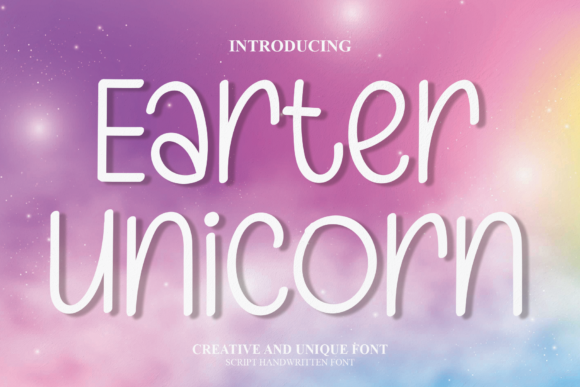
About Earter Unicorn Font
Earter Unicorn is a whimsical and charming handwritten font that radiates a sense of playfulness and friendliness. Its unique and endearing characters make it a perfect choice for a wide array of design applications, adding a touch of quirkiness and character to your creative projects.
When it comes to wall hangings, Earter Unicorn’s lighthearted and casual vibe can bring a sense of joy and positivity to any space. Its handwritten style lends itself beautifully to creating eye-catching and captivating wall art that brightens up any room.
For couples looking to add a touch of personality to their wedding invitations, Earter Unicorn offers a delightful option. Its friendly and approachable characters inject a sense of warmth into the design, making recipients feel welcomed and excited about the upcoming event.
The font’s playful nature also makes it an excellent choice for social media post logos and advertisements. Whether you’re promoting a product or sharing a message, Earter Unicorn’s cheerful typography can help create a strong visual identity that resonates with your audience.
Product packaging and designs can benefit from the font’s quirky charm as well. By incorporating Earter Unicorn into labels, product packaging, and designs, you can infuse your products with a sense of whimsy that stands out on the shelves and makes a memorable impression.
Photography watermarks take on a new level of creativity with Earter Unicorn. Its handwritten style adds a personal and artistic touch to your images, ensuring that your brand identity is well-represented in every photograph.
Invitations and stationery also get a boost of character with Earter Unicorn. Whether it’s a birthday party invitation or personalized stationery, the font’s friendly appearance adds a touch of fun and individuality to your designs.
In summary, Earter Unicorn is a quirky, casual, and friendly handwritten font that is a perfect fit for a variety of design projects. Its versatility makes it well-suited for wall hangings, wedding invitations, social media logos, advertisements, product packaging, labels, photography watermarks, and more. By incorporating Earter Unicorn into your creative endeavors, you’ll infuse them with a sense of whimsy and charm that captures the hearts of your audience and adds a unique flair to your designs.